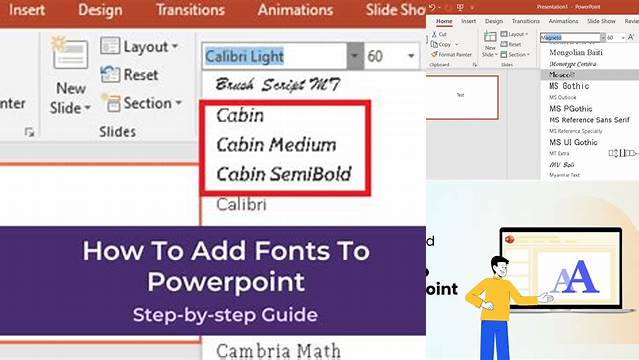
Add Fonts To PowerPoint: A Simple Guide
Adding custom fonts to your PowerPoint presentations can significantly enhance their visual appeal and make your message stand out. Whether you're aiming for a professional, elegant, or playful look, using the right fonts can set the tone and reinforce your brand identity. This comprehensive guide will walk you through the process of adding fonts to PowerPoint, ensuring your presentations are visually captivating and effective. Let's dive in, guys!
Why Add Custom Fonts to PowerPoint?
Before we get into the how-to, let's discuss the why. Adding custom fonts to your PowerPoint presentations isn't just about aesthetics; it's about making a statement. Think of fonts as the voice of your text. A bold, sans-serif font might shout confidence and modernity, while a delicate script font could whisper elegance and creativity. Using custom fonts can help you:
- Reinforce Brand Identity: Consistent use of specific fonts across all your presentations helps build brand recognition. If your company uses a particular font in its logo and marketing materials, incorporating it into your PowerPoint presentations creates a cohesive brand image.
- Enhance Visual Appeal: The default fonts in PowerPoint are functional, but they can be a bit…well, boring. Custom fonts can add flair and personality to your slides, making them more engaging and visually appealing. Imagine transforming a mundane slide into a captivating visual masterpiece simply by changing the font!
- Stand Out from the Crowd: In a world saturated with presentations, using unique fonts can help your slides stand out. When everyone else is using Arial and Times New Roman, your custom fonts can make your presentation memorable.
- Improve Readability: Some fonts are simply easier to read than others. Choosing a custom font that is clear and legible can ensure your audience can easily follow your message, especially in large presentation settings.
- Create a Specific Mood or Tone: Fonts have personalities. A playful, whimsical font can be perfect for a children's presentation, while a serious, professional font is better suited for a business proposal. Selecting the right font can help you set the mood and tone of your presentation, ensuring your message resonates with your audience.
So, you see, adding custom fonts is more than just a cosmetic upgrade; it's a strategic move that can significantly impact the effectiveness of your presentations. It's about crafting a visual narrative that complements your message and captivates your audience. Now that we're all on the same page about the importance of custom fonts, let's get into the nitty-gritty of how to add them to PowerPoint. It's easier than you might think, promise!
Step-by-Step Guide: Adding Fonts to PowerPoint
Okay, guys, let's get down to the brass tacks! Adding fonts to PowerPoint is a straightforward process, but it varies slightly depending on your operating system (Windows or macOS). Don't worry; we'll cover both. Follow these steps, and you'll be rocking custom fonts in no time!
For Windows Users
- Install the Font: Once you've downloaded the font, you need to install it on your system. Here's how:
- Right-click on the font file (e.g., yourfont.ttf) and select "Install" from the context menu. This is the quickest and easiest method.
- Alternatively, you can open the font file by double-clicking it. This will open a preview window. In the preview window, you'll see an "Install" button at the top. Click it to install the font.
- Another method is to manually copy the font file to the Fonts folder. To do this, open File Explorer and navigate to
C:\Windows\Fonts. Copy the font file and paste it into this folder. Windows will automatically install the font.
- Restart PowerPoint: After installing the font, it's crucial to restart PowerPoint. This ensures that PowerPoint recognizes the newly installed font. If PowerPoint was open during the installation, it might not display the font in the font list until you restart it. Close PowerPoint completely and then reopen it.
- Use Your New Font: Open your PowerPoint presentation and select the text you want to format. In the Font dropdown menu on the Home tab, you should now see your newly installed font listed among the available fonts. Select it, and voila! Your text will magically transform into the new font.
For macOS Users
- Download Your Font: Just like with Windows, the first step is to download the font file. Again, make sure it's in a compatible format like .ttf or .otf. Websites like Google Fonts, Adobe Fonts, Dafont, and Font Squirrel are excellent resources for finding fonts.
- Install the Font: macOS offers a couple of ways to install fonts:
- Double-click the font file (e.g., yourfont.otf). This will open Font Book, macOS's built-in font management application. In Font Book, click the "Install Font" button at the bottom of the window. This is the most common method.
- Alternatively, you can manually copy the font file to the Fonts folder. Open Finder, press Command + Shift + G to open the "Go to Folder" dialog, and type
/Library/Fonts(for fonts available to all users) or~/Library/Fonts(for fonts available only to your user account). Copy the font file and paste it into the appropriate Fonts folder. Font Book will automatically recognize and install the font.
- Restart PowerPoint: Similar to Windows, you need to restart PowerPoint after installing the font. This ensures that PowerPoint detects the new font and adds it to the font list. Close PowerPoint completely and then reopen it.
- Use Your New Font: Open your PowerPoint presentation, select the text you want to style, and open the Font dropdown menu. Your newly installed font should be listed there. Select it to apply the font to your text. Easy peasy!
Sometimes, things don't go as smoothly as we'd like. You might encounter a few hiccups when adding fonts to PowerPoint. But don't fret! Here are some common issues and how to troubleshoot them:
- Font Not Appearing in PowerPoint:
- Restart PowerPoint: This is the most common solution. As mentioned earlier, PowerPoint needs to be restarted to recognize newly installed fonts.
- Verify Installation: Double-check that the font is properly installed on your system. On Windows, go to
C:\Windows\Fontsand look for the font. On macOS, open Font Book and see if the font is listed. If it's not there, reinstall it. - Font Format: Ensure that the font is in a compatible format (.ttf or .otf). PowerPoint might not support other font formats.
- Font Displaying Incorrectly:
- Corrupted Font File: The font file might be corrupted. Try downloading the font again from a reputable source.
- Font Substitution: PowerPoint might be substituting the font with a similar one if it encounters issues with the original font. This can happen if the font is missing certain characters or glyphs. Try using a different font or embedding the font in your presentation (we'll discuss embedding fonts later).
- Compatibility Issues: Some fonts might not be fully compatible with PowerPoint or your operating system. This is rare, but it can happen. Try a different font.
- Font Rendering Problems:
- Graphics Card Issues: In some cases, issues with your graphics card or drivers can cause font rendering problems. Try updating your graphics card drivers.
- PowerPoint Settings: Check your PowerPoint settings to ensure that font smoothing and other display options are enabled.
Embedding Fonts in PowerPoint
Okay, this is a pro tip, guys! Embedding fonts in your PowerPoint presentation is crucial if you plan to share your presentation with others or present it on a different computer. Embedding fonts ensures that the fonts you've used will display correctly, even if the recipient doesn't have those fonts installed on their system. Here's how to do it:
- Open Your Presentation: Open the PowerPoint presentation you want to embed fonts in.
- Go to File > Options: Click on the "File" tab in the ribbon, and then select "Options" from the menu.
- Select the Save Tab: In the PowerPoint Options dialog box, click on the "Save" tab.
- Embed Fonts: Scroll down to the "Preserve fidelity when sharing this presentation" section. Check the box that says "Embed fonts in the file." You'll see two options:
- Embed only the characters used in the presentation (best for reducing file size): This option embeds only the characters that are actually used in your presentation, which helps to keep the file size down. It's a good choice if you're concerned about file size and you're not planning to make significant changes to the text later.
- Embed all characters (best for editing by other people): This option embeds the entire font, including all characters and glyphs. It's a better choice if you're sharing the presentation with others who might need to edit the text or add new content. However, it will increase the file size.
- Save Your Presentation: Click "OK" to save your changes. When you save your presentation, the fonts will be embedded in the file.
By embedding fonts, you can rest assured that your presentation will look exactly as you intended, no matter where it's viewed. It's a small step that can make a big difference in ensuring your message is delivered effectively and professionally.
Best Practices for Using Fonts in PowerPoint
Now that you know how to add fonts to PowerPoint, let's talk about best practices. Using custom fonts can elevate your presentations, but it's essential to use them wisely. Here are some tips to keep in mind:
- Limit Your Font Choices: Don't go overboard with fonts! Using too many fonts can make your presentation look cluttered and unprofessional. Stick to a maximum of two or three fonts for your entire presentation. One font for headings and another for body text is a good rule of thumb. This creates a clean, consistent look.
- Choose Readable Fonts: Legibility is key. Select fonts that are easy to read, especially in large presentation settings. Avoid overly decorative or script fonts for body text. Sans-serif fonts like Arial, Helvetica, and Calibri are generally good choices for body text, while serif fonts like Times New Roman and Georgia can work well for headings.
- Consider Your Audience: Think about your audience when choosing fonts. A formal audience might appreciate classic, professional fonts, while a more casual audience might be open to more creative options. Tailor your font choices to your audience's expectations and preferences.
- Test Your Fonts: Always test your presentation on different computers and projectors to ensure that your fonts display correctly. This is especially important if you're using custom fonts that might not be installed on every system. Embedding fonts can help mitigate this issue.
- Use Font Hierarchy: Use different font sizes and styles to create a visual hierarchy in your slides. Headings should be larger and bolder than body text. This helps guide the audience's eye and makes your slides easier to scan.
- Contrast is Key: Ensure there's sufficient contrast between your text color and background color. Light text on a dark background or dark text on a light background is generally easiest to read. Avoid using colors that are too similar, as this can make your text difficult to see.
- Respect Font Licensing: Be mindful of font licensing. Some fonts are free for personal use but require a commercial license for business use. Always check the font's license terms before using it in a commercial presentation.
By following these best practices, you can use fonts effectively to enhance your PowerPoint presentations and communicate your message with clarity and impact. Remember, fonts are a powerful design element, so use them strategically to create visually compelling and engaging slides.
So there you have it, guys! Adding fonts to PowerPoint is a simple yet powerful way to elevate your presentations and make them truly your own. By following the steps outlined in this guide, you can easily install and use custom fonts, troubleshoot common issues, and embed fonts for seamless sharing. Remember to choose your fonts wisely, keeping readability, brand identity, and audience in mind. With a little practice, you'll be crafting visually stunning presentations that captivate your audience and leave a lasting impression. Now go forth and conquer the world of PowerPoint with your newfound font expertise! You got this!